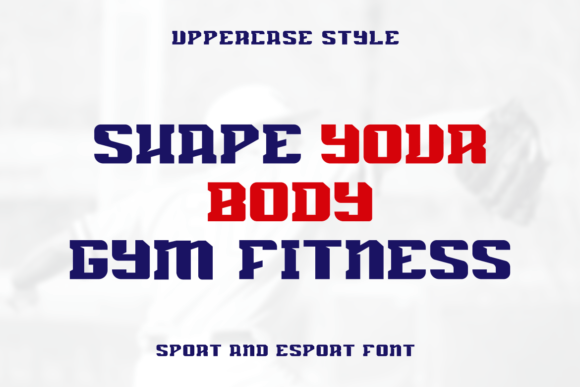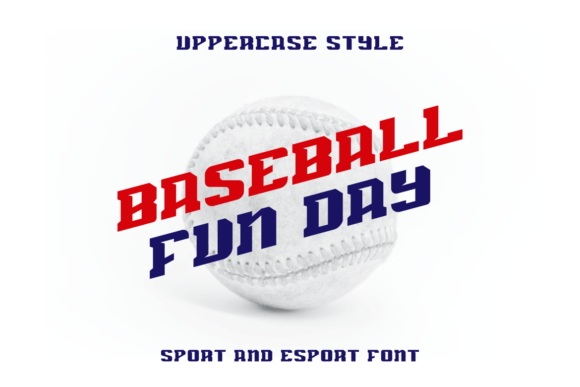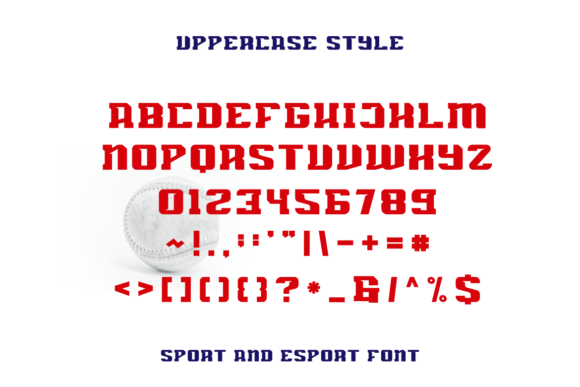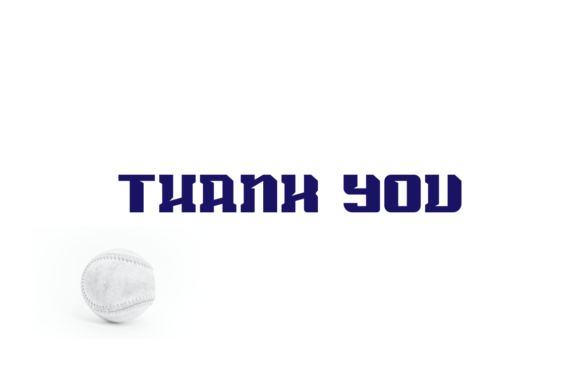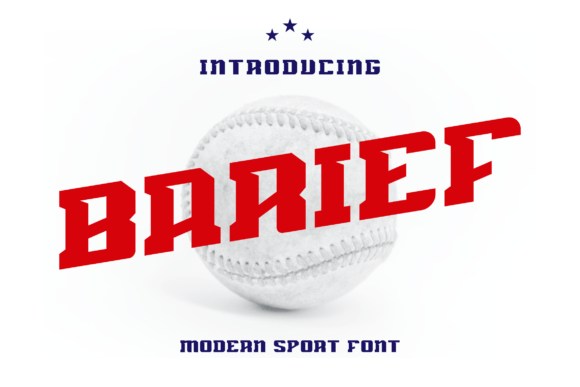
Introducing Barief Font: The Ultimate Choice for Sports-Themed Designs
Are you a designer or crafter looking for a font that exudes strength and masculinity? Look no further than Barief Font. This powerful serif font is specifically designed to make a statement, making it the perfect choice for sports-themed projects, fitness and gym-related designs, headlines, posters, and more.
The Power of Barief Font
Barief Font boasts a bold and rugged appearance that commands attention. Its strong serif lines and sturdy structure evoke a sense of resilience and determination, making it an ideal choice for designs that require a masculine edge. Whether you’re creating a logo for a sports team, designing a fitness brochure, or crafting a bold headline, Barief Font is the perfect tool to help you achieve your creative vision.
Key Features of Barief Font
- Strong and Masculine Design: Barief Font’s bold appearance is perfect for creating striking designs that demand attention.
- Sports-Themed Projects: Its rugged and athletic feel makes it an excellent choice for sports-related designs, such as logos, jerseys, and promotional materials.
- Fitness and Gym-Related Designs: Barief Font’s strong and dynamic appearance is well-suited for fitness and gym-related designs, including brochures, posters, and social media graphics.
- Headlines and Posters: Use Barief Font to create eye-catching headlines and posters that grab attention and leave a lasting impression.
- Versatility: Barief Font can be used for a wide range of design projects, from digital graphics to print materials.
Why Choose Barief Font?
- Unique and Memorable: Barief Font’s distinctive design ensures that your projects will stand out from the crowd and leave a lasting impression.
- Easy to Read: Despite its bold appearance, Barief Font remains highly legible, making it perfect for use in a variety of design applications.
- High-Quality Design: Barief Font is crafted with precision and attention to detail, ensuring a high-quality design that will elevate your projects.
Tips for Using Barief Font
- Use it Boldly: Barief Font is designed to make a statement, so don’t be afraid to use it in bold and eye-catching ways.
- Pair it with Contrasting Fonts: Combine Barief Font with contrasting fonts to create visual interest and add depth to your designs.
- Experiment with Colors: Try pairing Barief Font with a range of colors to find the perfect combination for your design.
In conclusion, Barief Font is a powerful and versatile serif font that’s perfect for designers and crafters looking to add a touch of masculinity and strength to their projects. With its bold appearance, rugged design, and high-quality craftsmanship, Barief Font is the ultimate choice for sports-themed designs, fitness and gym-related designs, headlines, posters, and more. So why wait? Download Barief Font today and start creating striking designs that demand attention.